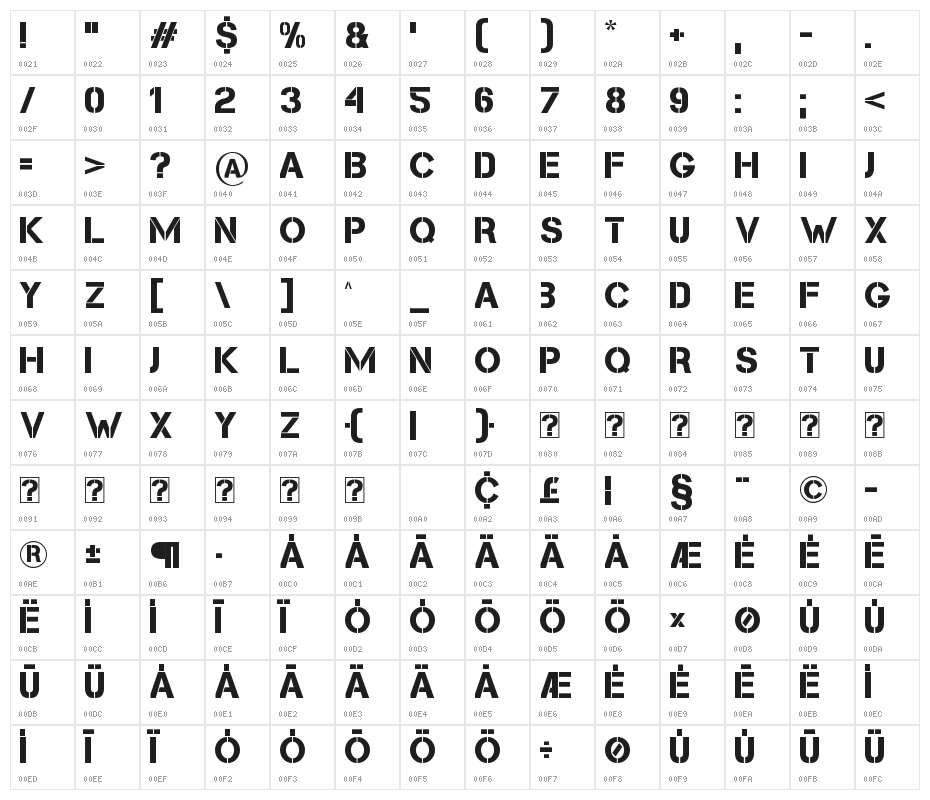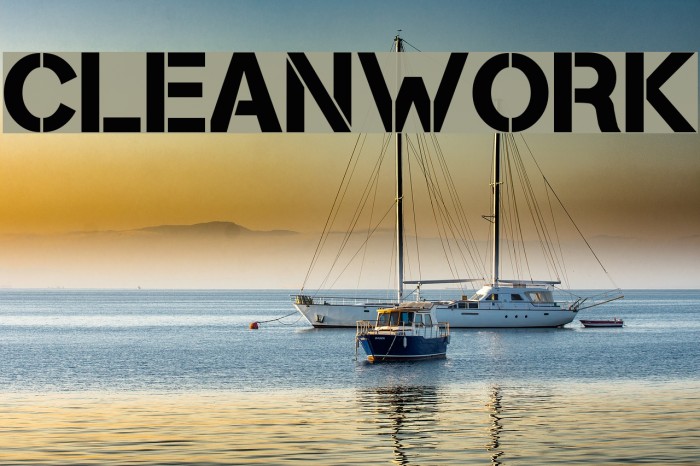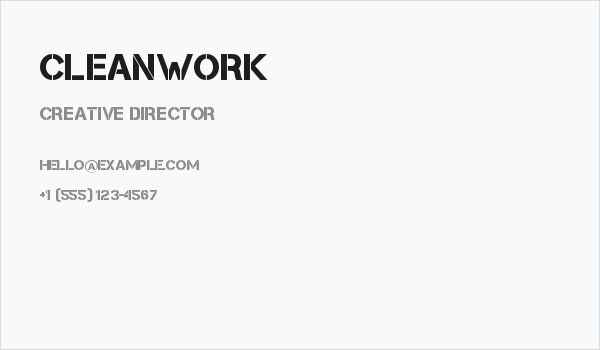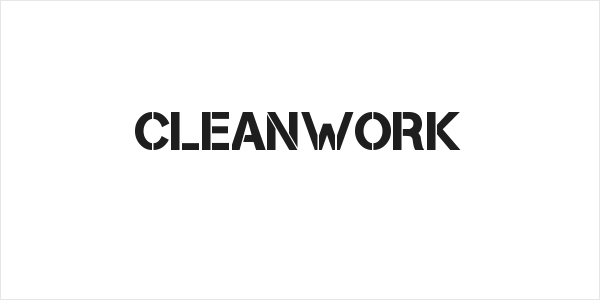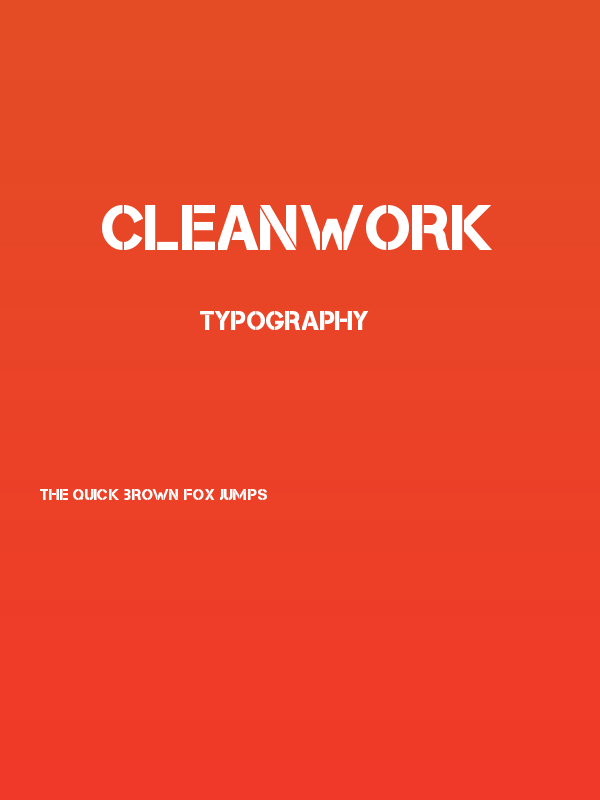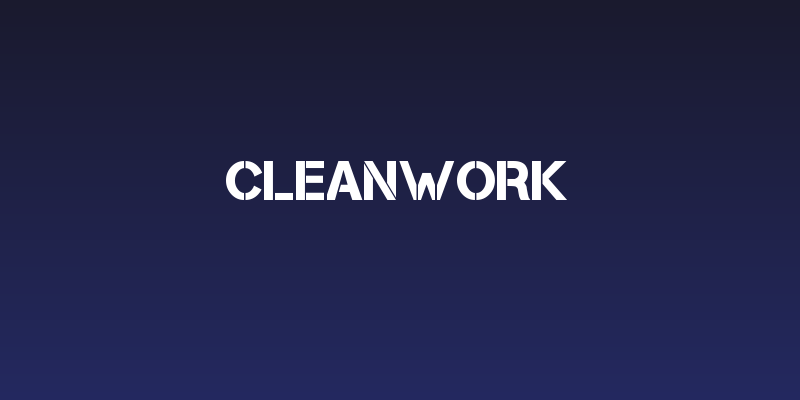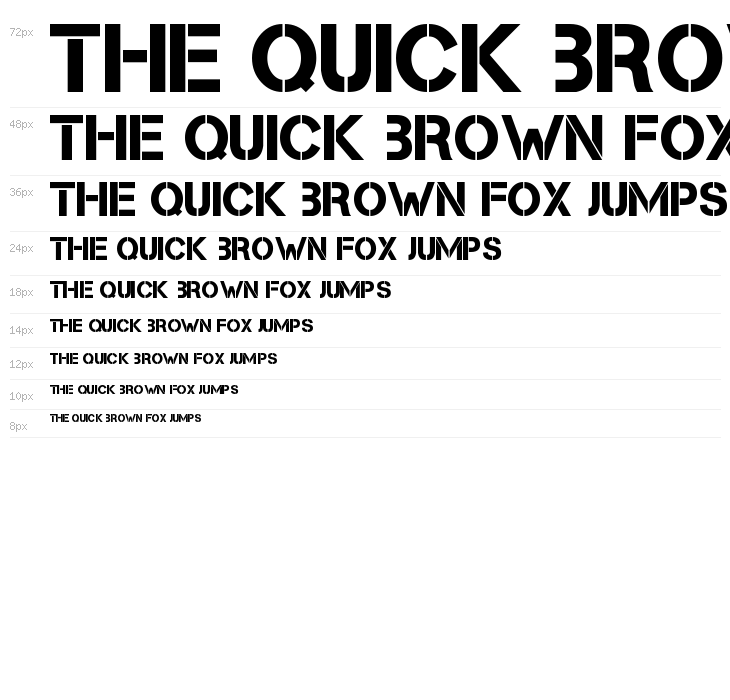
Cleanwork Font
Cleanwork Description
This font exhibits a bold and striking geometric style, characterized by its thick, block-like letterforms. The design features sharp angles and a strong presence, making it highly suitable for impactful visual statements. Each character is crafted with precision, maintaining a consistent width and height, which contributes to its uniform appearance. The font's distinctiveness is further enhanced by its unique cut-out sections within the letterforms, adding a modern and edgy touch. This design choice not only increases visual interest but also ensures excellent readability at various sizes. The font's overall aesthetic is both contemporary and versatile, making it ideal for a wide range of creative applications.
Proposed ProjectsIdeal for branding, advertising, poster design, and any project requiring a strong visual impact.